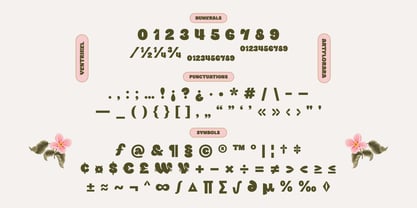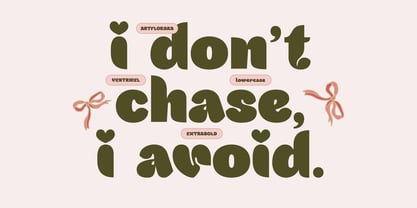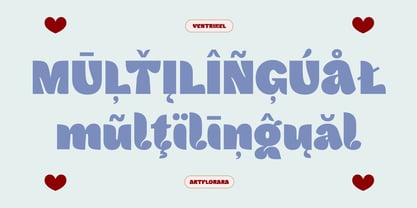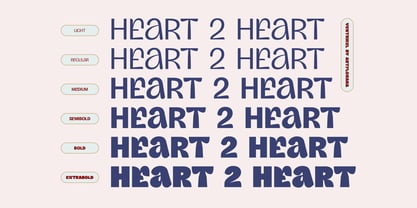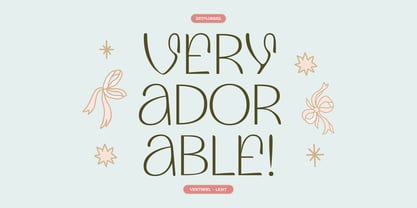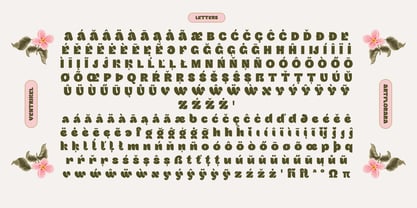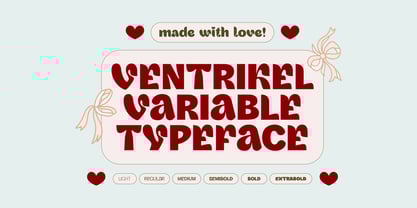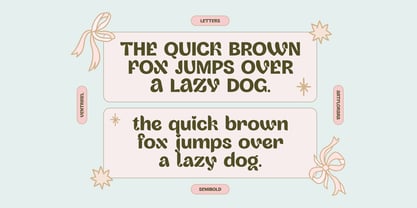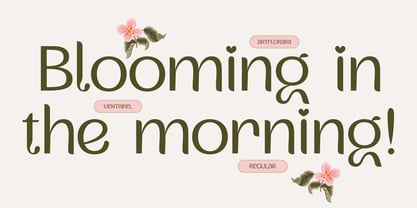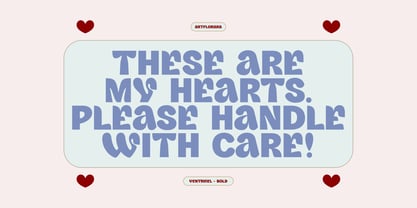
Ventrikel
by Artflorara
The Ventrikel Font Family was designed by Zahra Nurfatihah and published by Artflorara. Ventrikel contains 7 styles and family package options. More about this family
VENTRIKEL is a unique and whimsical display sans serif typeface. Its name, Ventrikel, is derived from the word ventricle—two main chambers of the heart, left and right. The font features a distinctive set of characters that subtly resemble the shape of a heart or symbol of love, most notably in the letters v, w, y, as well as in the tittle of the lowercase i and j. Ventrikel typeface is suitable for playing cards, identity design, prints, editorials, event invitations, greeting cards, posters, website design, app, branding, menus, logo design, letters, stationeries, accessories, or any creative projects.
About Artflorara
Artflorara is dedicated to crafting display typefaces that express beauty, clarity, and emotional depth. Originally rooted in visual art and illustration, the creativity naturally evolved into type design as a more powerful way to communicate feelings through form. Artflorara creates for designers, storytellers, anyone who value authenticity, quiet elegance, and emotional resonance.